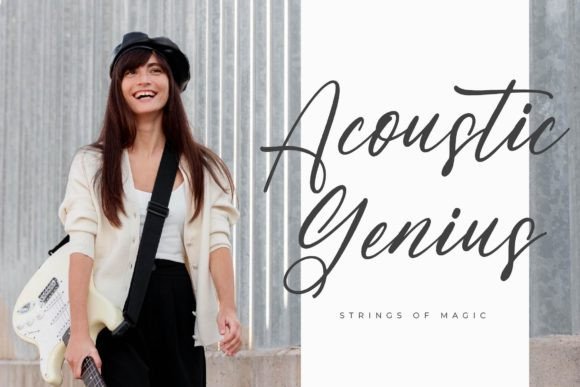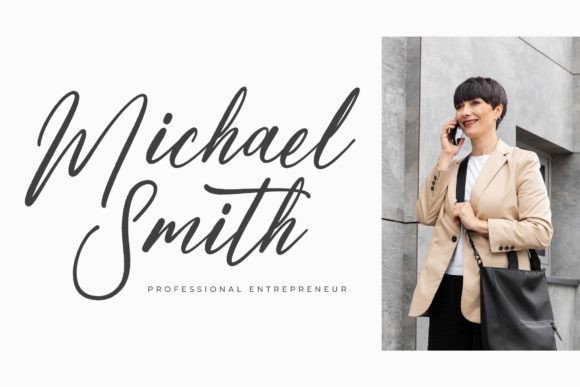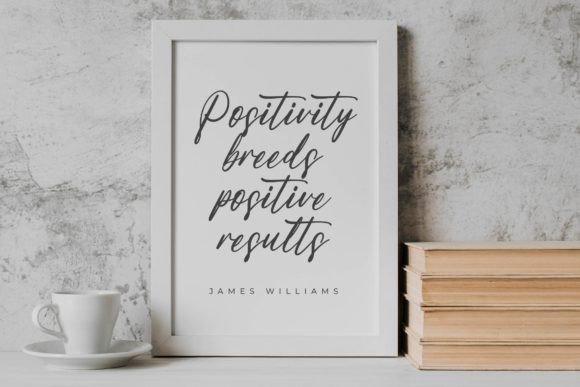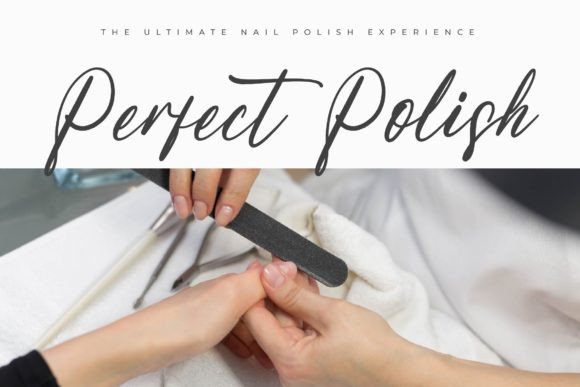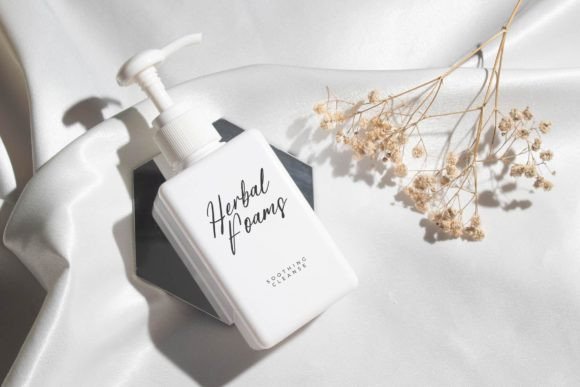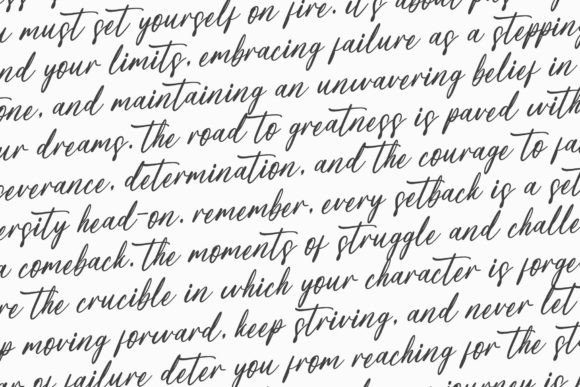
Introduction to Florentine Natural Font
Meet Florentine Natural: a dazzling handwritten script font that exudes urban sophistication and charm.
Its flowing, confident strokes and stylish flair make it perfect for invitations, branding, and editorial designs Florentine Natural brings a personal touch to any project, combining elegance with a contemporary, artisanal twist.
Key Features of Florentine Natural Font
Why Choose Florentine Natural Font?
Florentine Natural Font offers exceptional quality and versatility, making it a valuable addition to your design toolkit. Whether you’re creating for personal projects or commercial use, Florentine Natural Font delivers professional results.